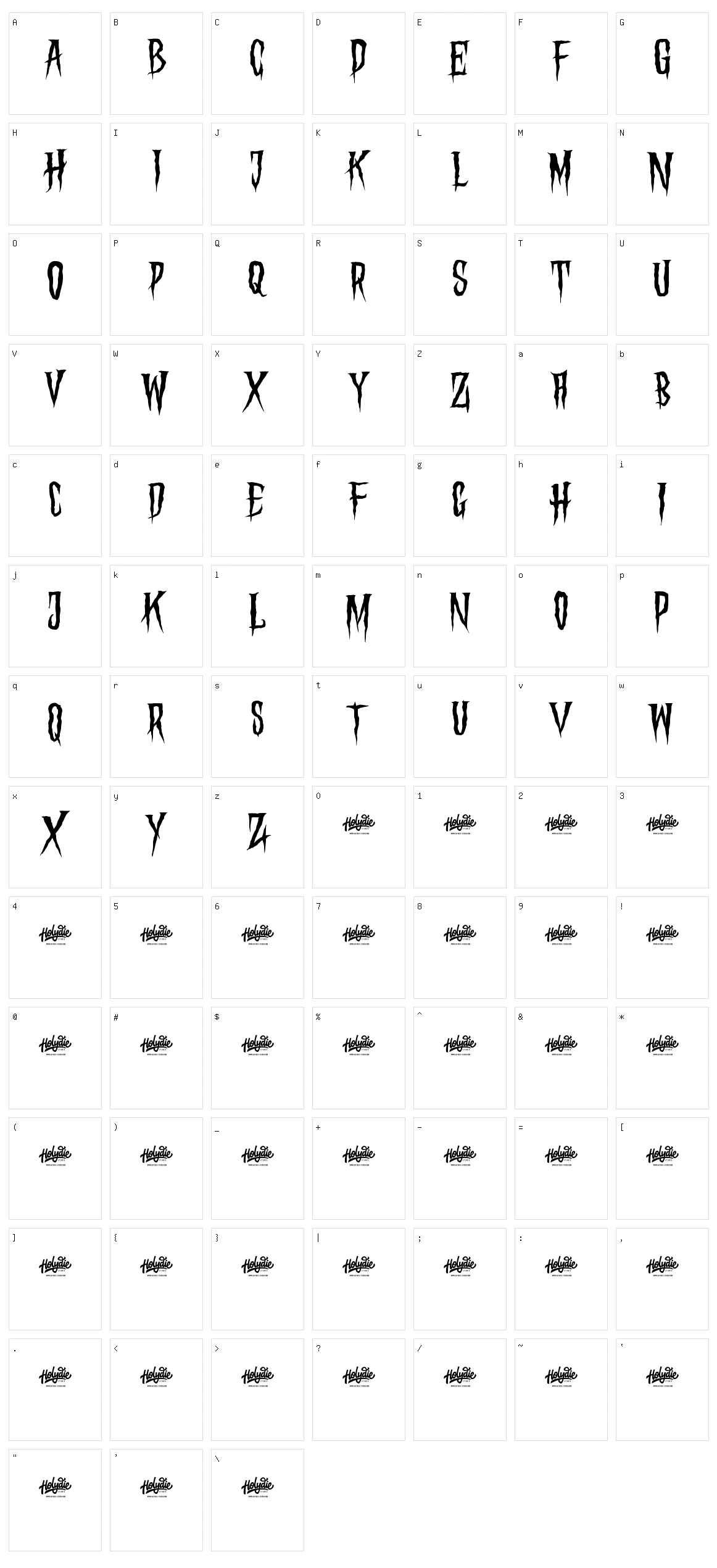
The free font Hungry Hunters is carefully designed by Holydie Studio, showcasing a thoughtful balance of creativity and usability and falls under the Horror font style. When you download the ZIP file, it contains only 23.48 KB of font files, making it lightweight and quick to download. Please review the license details below to understand permitted usage and distribution rights. If license information is not available, we recommend using this font for personal projects only or contacting the author directly for commercial usage permissions.